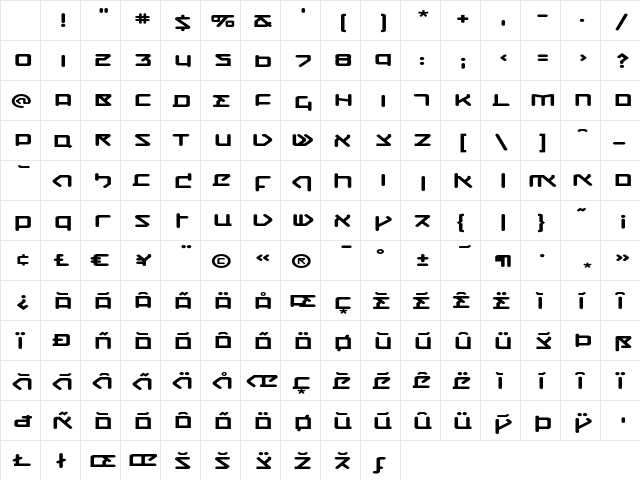
CQN-Molecular Dynamo Free Font
CQN-Molecular Dynamo
Style: Dynamo
Design Context for CQN-Molecular
CQN-Molecular is a composed and adaptable typeface that performs quietly and consistently across a wide range of design contexts.